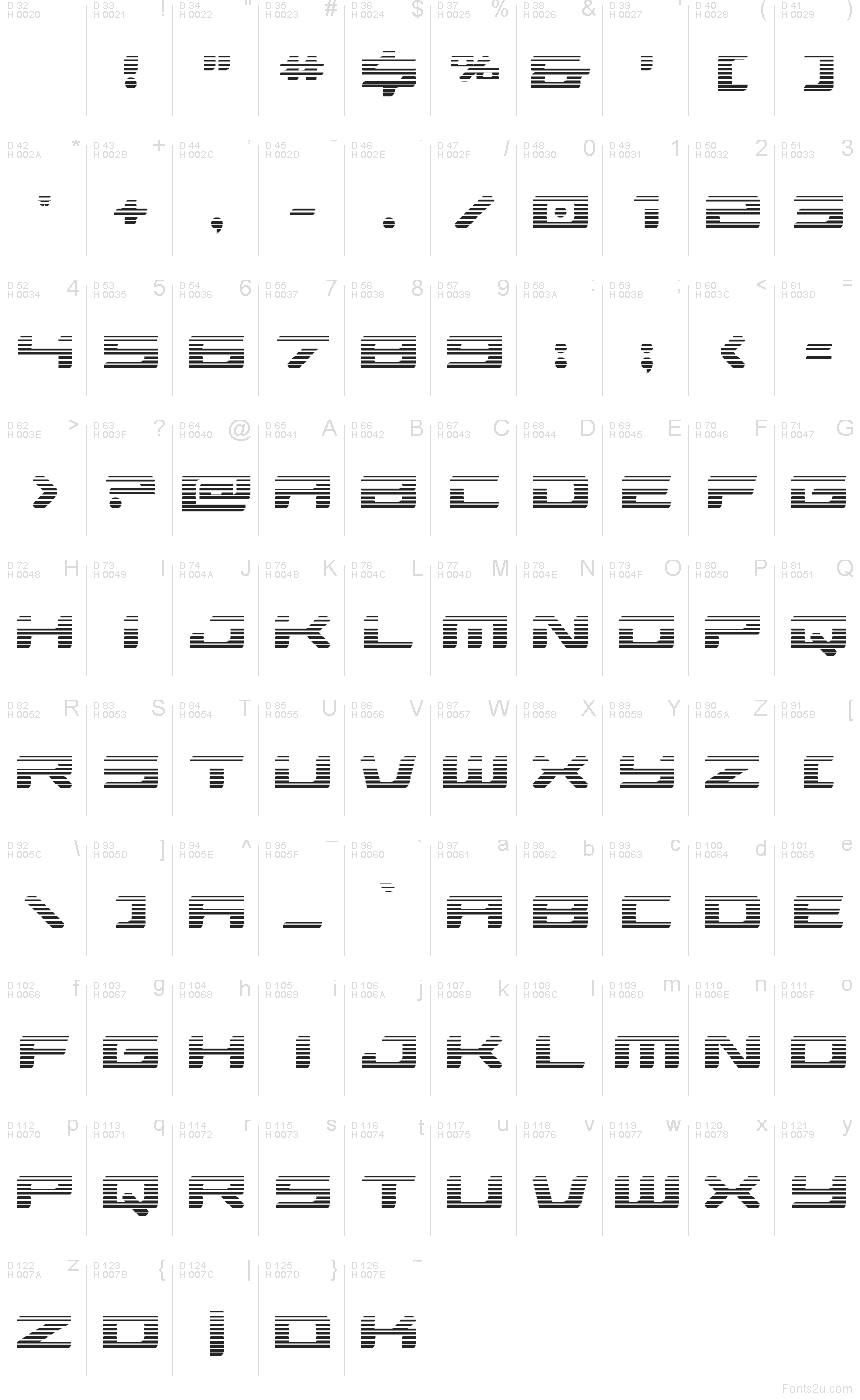
Race Pod Gradient
Race Pod Gradient font by Iconian Fonts is a free futuristic display typeface with a distinct speed-striped look. Each letter is sliced into sharp horizontal bands that fade from dark to light, creating a metallic gradient that feels like motion blur on a night racetrack. The tight spacing and elongated forms give your text a fast, engine-roar energy that jumps off dark backgrounds and neon palettes alike.
Using Race Pod Gradient, you can push branding and titles for racing games, esports teams, sci-fi posters, streaming overlays, YouTube thumbnails, and event flyers into full-throttle territory. This free font works best at large sizes where the gradient stripes can really breathe, so keep it for headlines and logos. For supporting text, pair it with a simple geometric sans in solid white or gray to let the Race Pod family handle the drama.